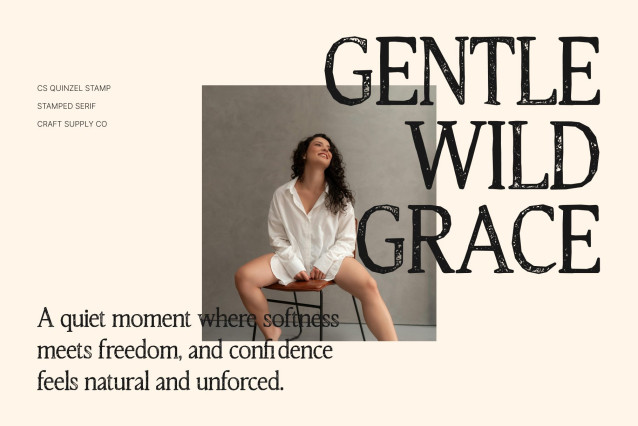
CS Quinzel Stamp Font
CS Quinzel Stamp – Modern Serif Font: Where Timeless Elegance Meets Vintage Artistry
Slender Elongated Serifs with Refined Sophistication
This is a modern serif font that harmoniously blends contemporary structure with timeless elegance. Designed with slender elongated serifs and graceful proportions, it radiates refinement, luxury, and sophisticated style. Its balanced forms create a polished visual rhythm that feels both modern and classic, making every composition appear elegant and high-end.
Contemporary Structure with Timeless Beauty
This font delivers a typographic voice that feels stylish, professional, and artistically refined. The elongated serif details enhance its graceful personality while maintaining excellent readability, creating a font that embodies sophistication and exclusivity.